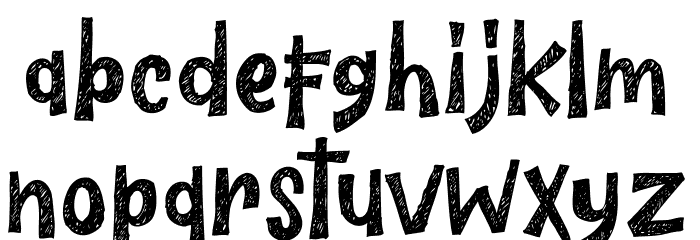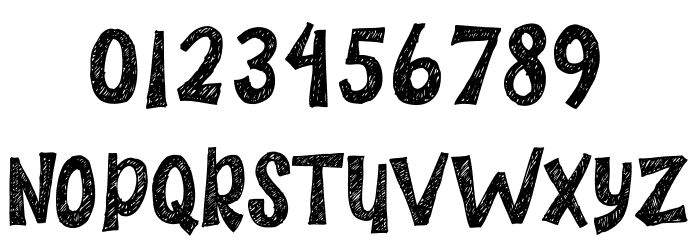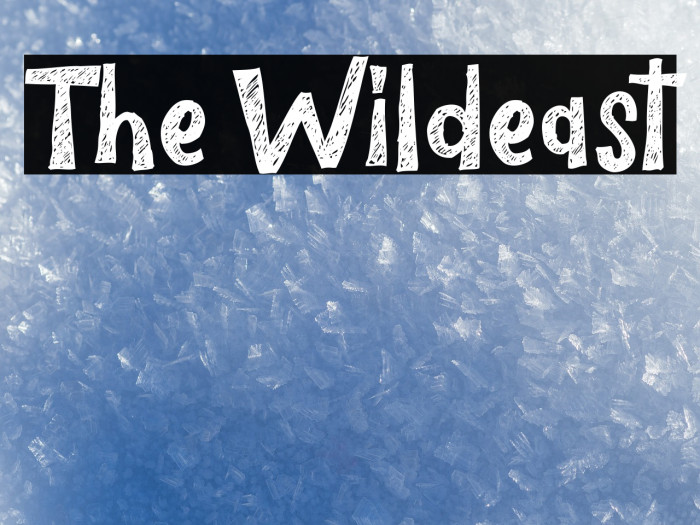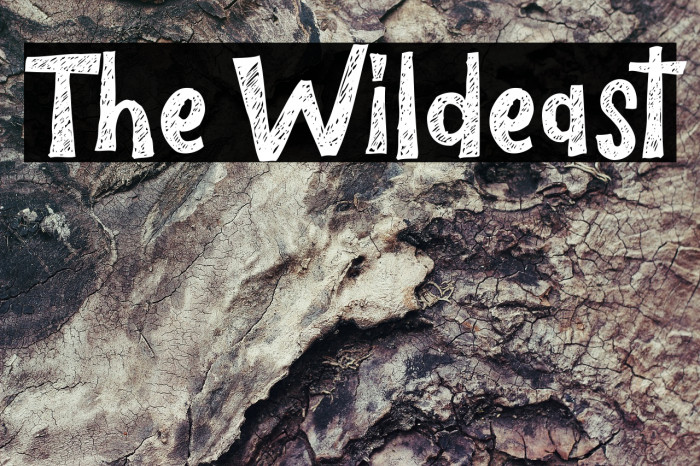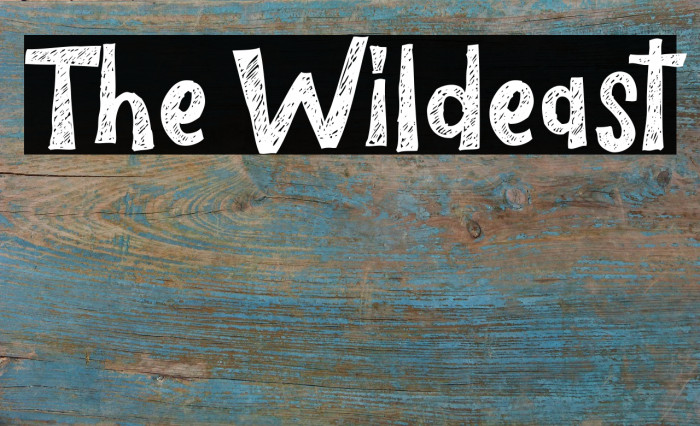
The Wildeast Font
This font features a playful and dynamic style with a hand-drawn appearance. The letters are bold and slightly irregular, giving them a whimsical and informal look. Each character is filled with a textured pattern that resembles scribbles or doodles, adding to its unique charm. The font maintains a consistent weight throughout, with moderate spacing between characters. It is well-suited for creative projects that require a fun and engaging visual element. The numbers and special characters are designed with the same playful aesthetic, ensuring a cohesive look across all text elements.
A playful, hand-drawn font with a textured, doodle-like appearance.
- Proposed Projects: Ideal for children's books, playful branding, greeting cards, and creative posters.
- Overall Style: Playful, Whimsical